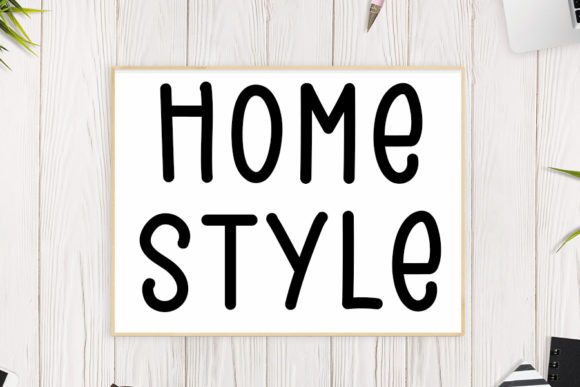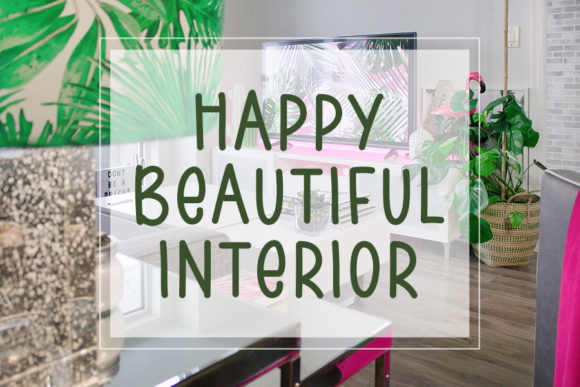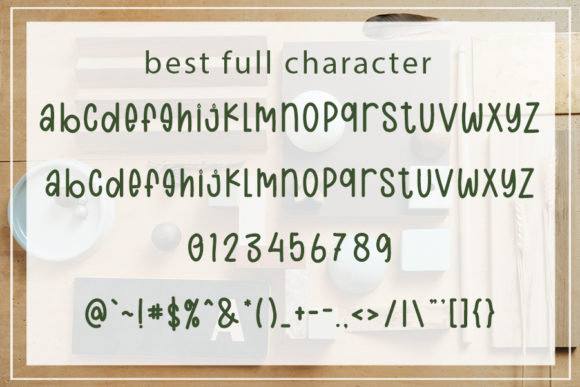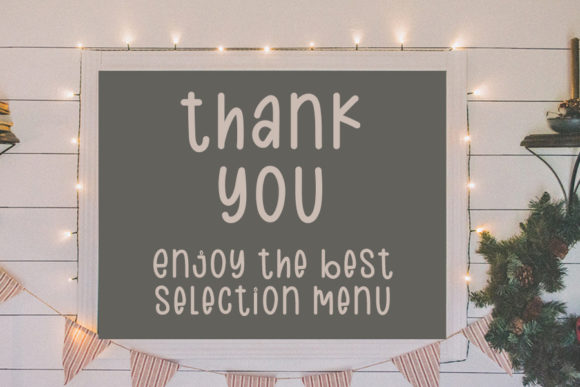
Winter at Night Font
About Winter at Night Font
Winter At Night is a simple and friendly handwritten font. It has a casual and attractive style and is the ideal choice for each of your informal designs.